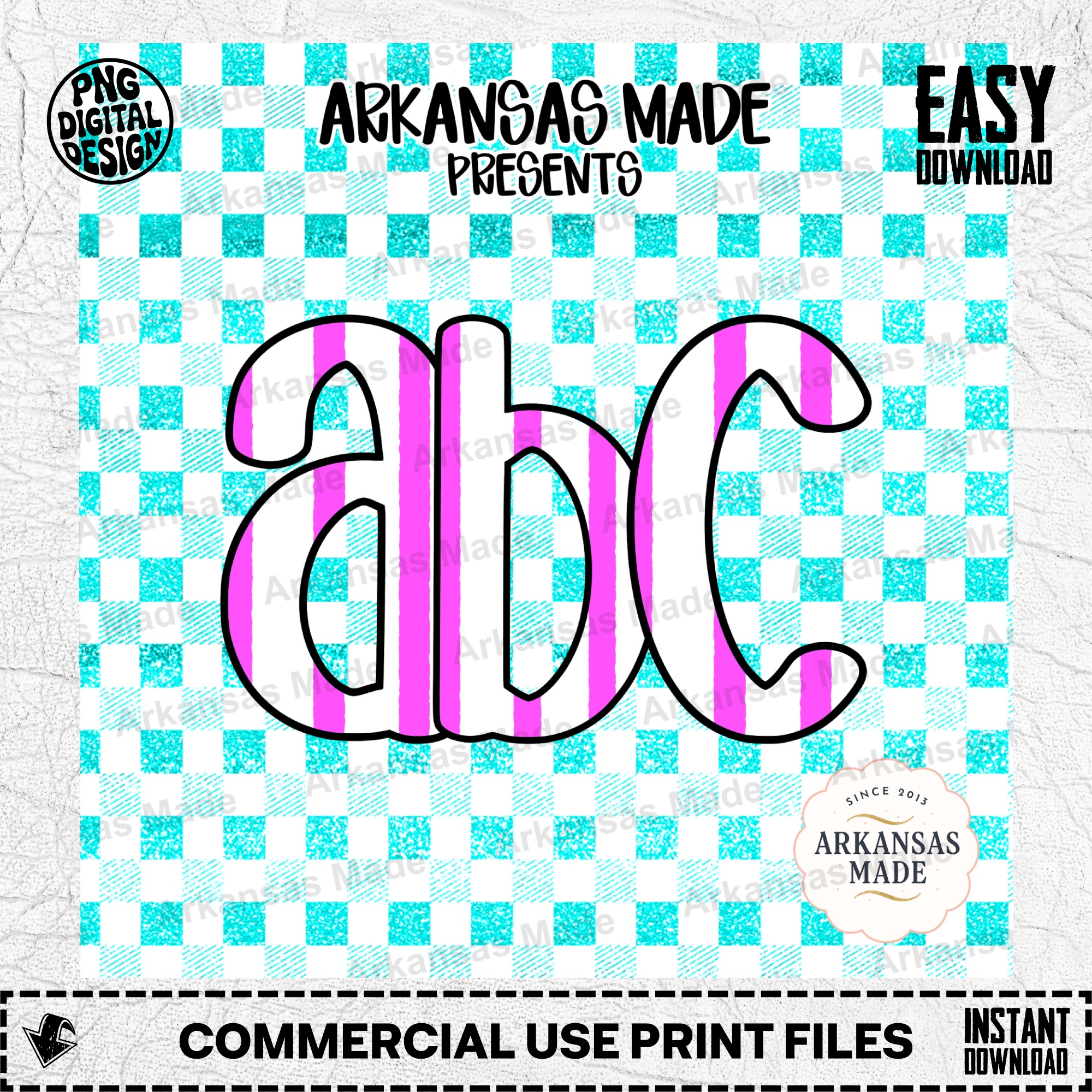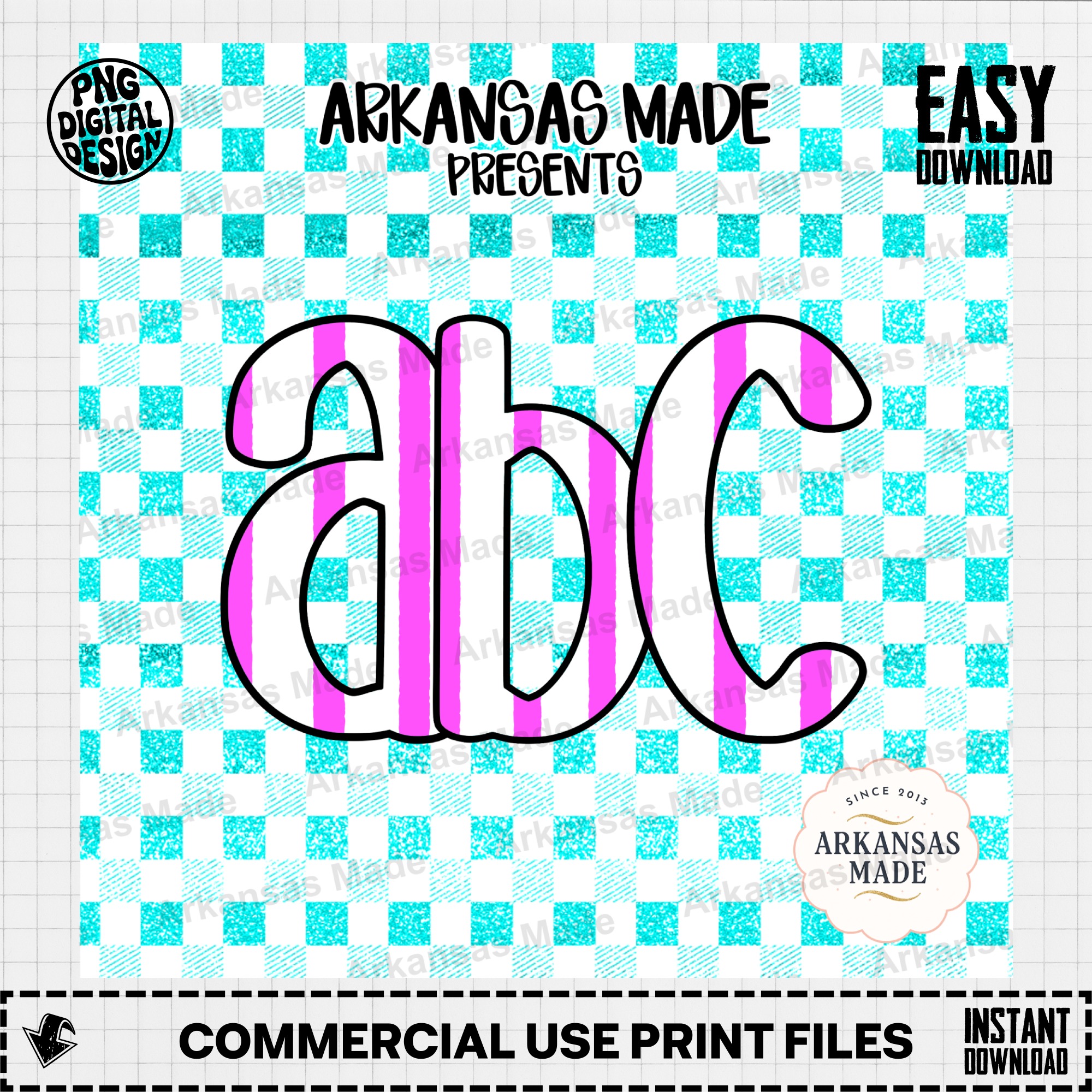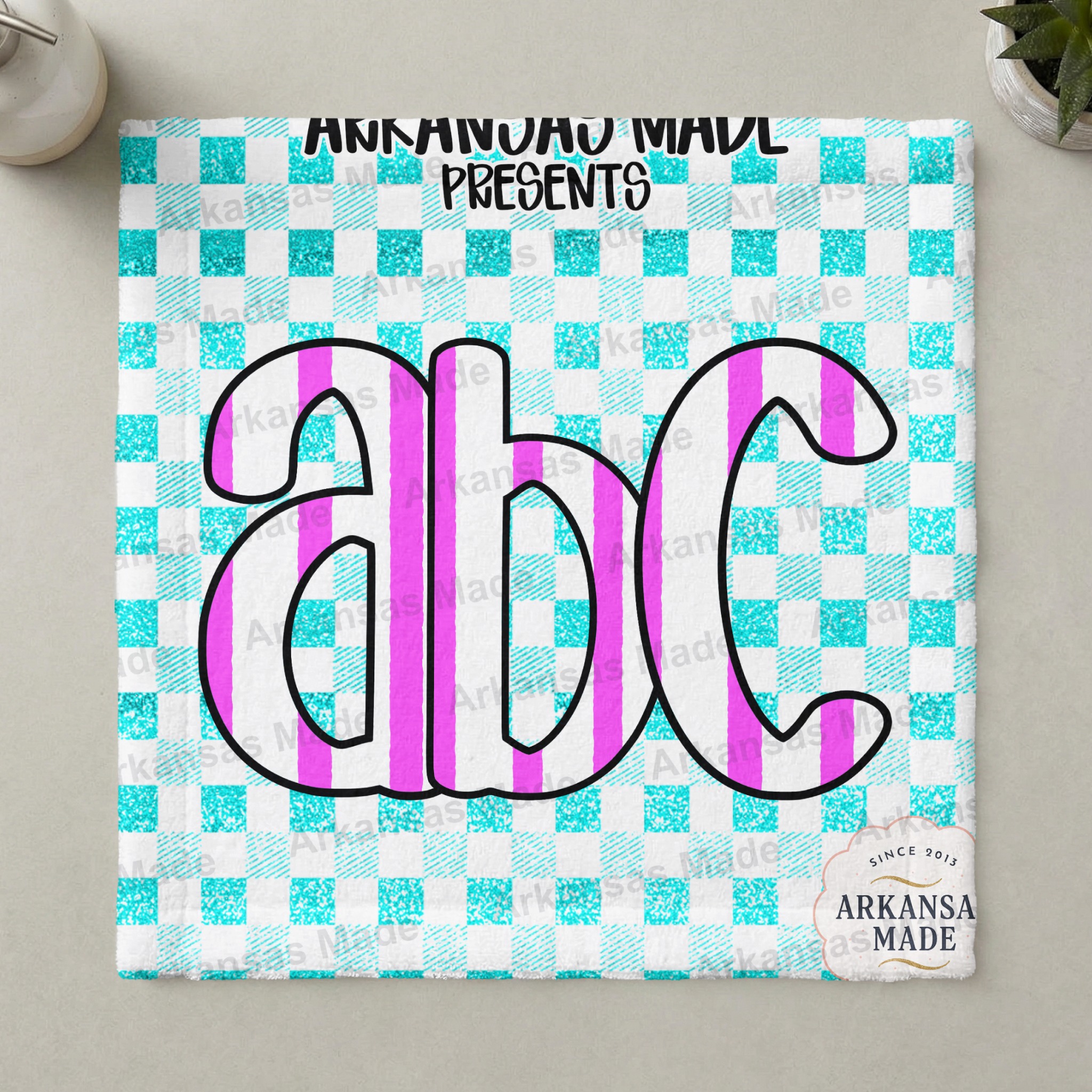
Elevate your designs with this vibrant Pink Teal Gingham Glitter Alphabet Digital Download Alpha Set! Perfect for crafters seeking preppy, striped letters. This trendy collection features playful bubble letters filled with faux pink stripes and set against a faux teal glitter gingham background, offering a fun aesthetic. Ideal for personalized gifts, apparel, party decorations, or unique branding for creative entrepreneurs and teachers. A fantastic resource for DIY enthusiasts looking to add a cute and bright touch to any project.